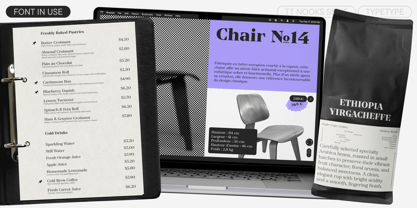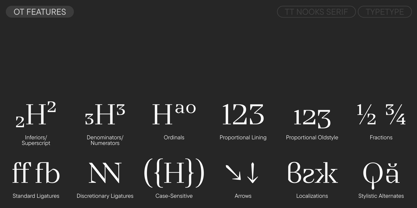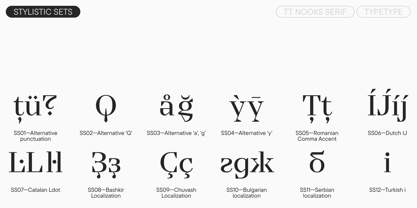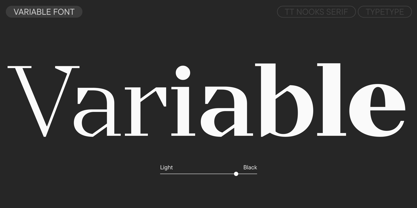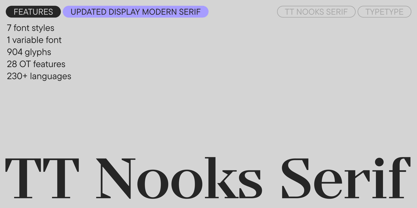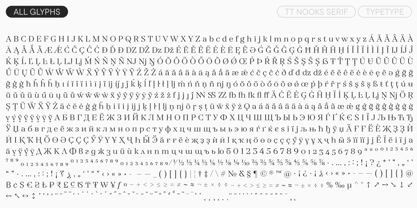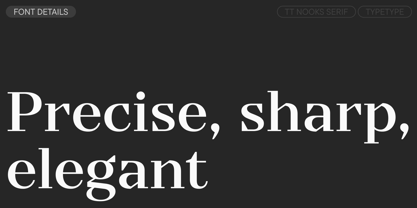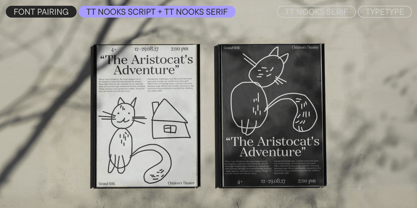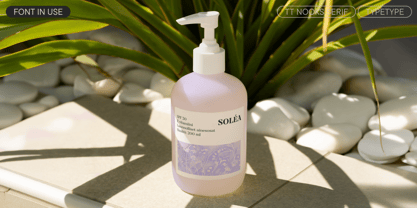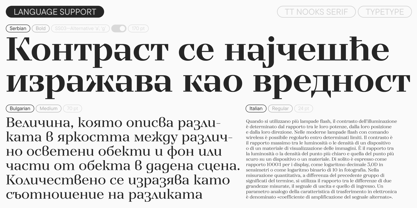
TT Nooks Serif
The TT Nooks Serif Font Family was designed by Ivan Gladkikh, Antonina Zhulkova, Marina Khodak, TypeType Team and published by TypeType. TT Nooks Serif contains 8 styles and family package options. More about this family
Meet TT Nooks Serif version 2.000! We have significantly updated the font: reworked the character graphics, seriously expanded the character set, and added new font styles, stylistic sets, features, and languages.
TT Nooks Serif is a display modern serif with a slight touch of egocentricity. It has a sharp and firm, yet elegant and stately character. High contrast and a slight squarishness of the characters give it strictness and angularity, while wide proportions make this font stand out among other contemporary serifs.
The unusual asymmetrical serifs stand out particularly vividly in TT Nooks Serif; thanks to their geometric shape, they resemble "slippers." They also add stability to the font and help better balance the black and white space within the letters
Initially, TT Nooks Serif included 4 font styles. For user convenience, we recalculated the thickness of all styles and added three new ones: Medium, DemiBold, and ExtraBold, as well as a variable font. Also, during the update process, we significantly transformed the typeface: reimagined the letterforms and revised the proportions. At the same time, the overall impression and image of the font remained the same: it is still authentic, noble, and easily recognizable.
In particular, in version 2.000, we supplemented the extended Cyrillic and Latin, expanded the main set of currencies, and added fractions and service symbols. Fresh stylistic sets appeared (for example, with alternate forms of "Q," "a," "g," "y," and diamond-shaped punctuation), along with new OpenType features and languages.
TT Nooks Serif is a stylish and vibrant font that reveals itself best in medium and large sizes. There is something chivalrous in its mood, so it will look great on book and magazine covers and in projects related to history and art. The typeface is also highly suitable for web, branding, packaging design, and much more.
TT Nooks Serif 2.000 includes:
- 8 font styles: 7 upright styles and 1 variable font
- 904 glyphs per style
- 28 OpenType features
- Support for over 230 languages